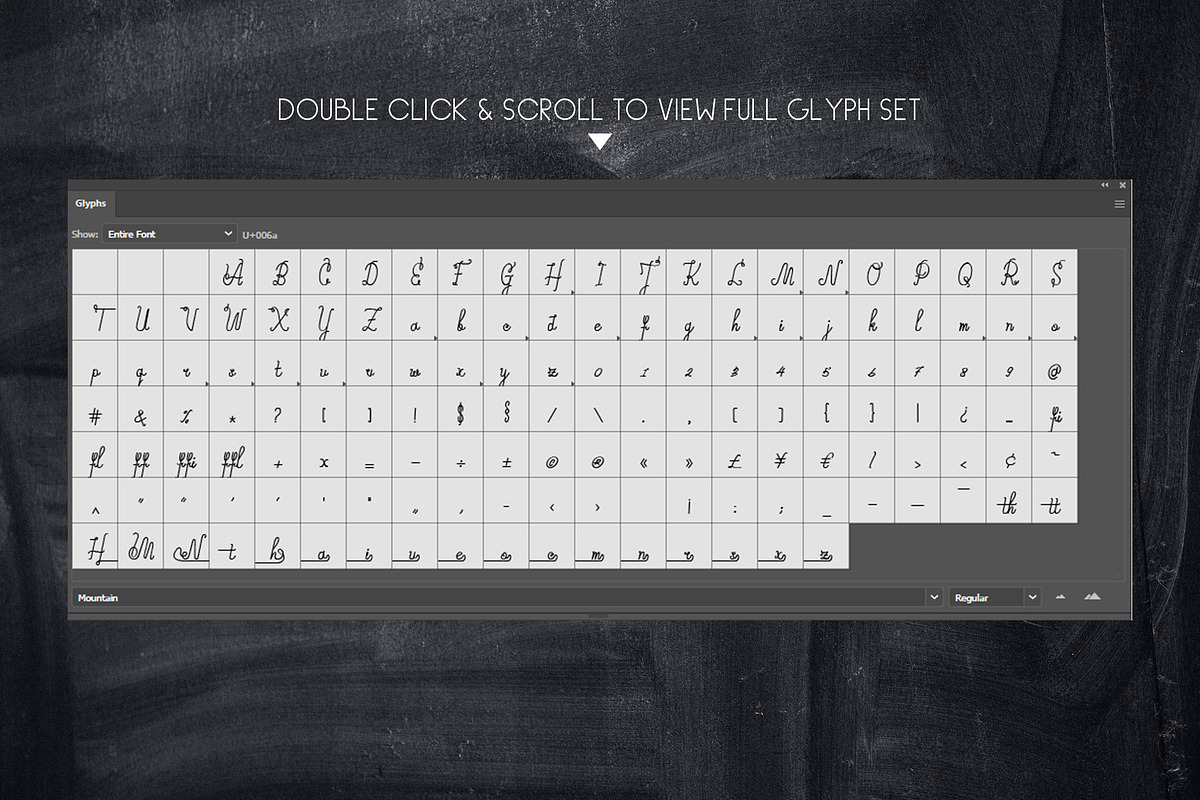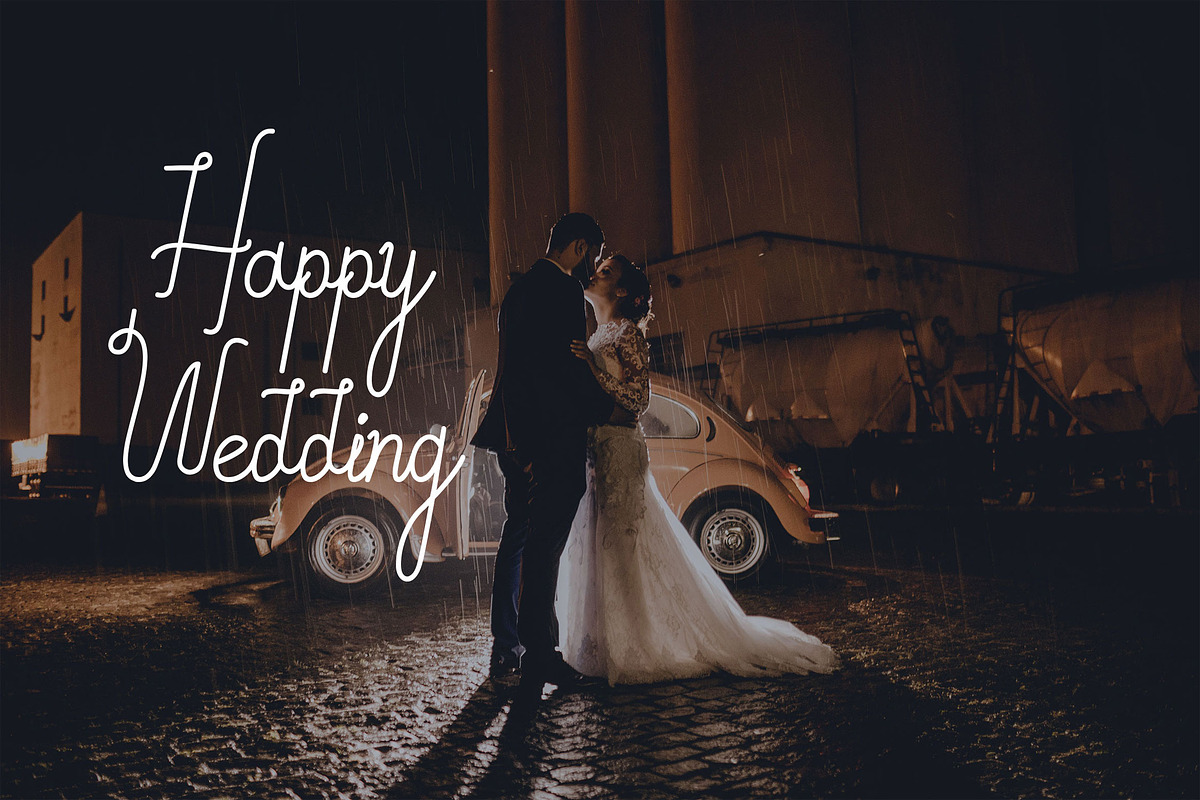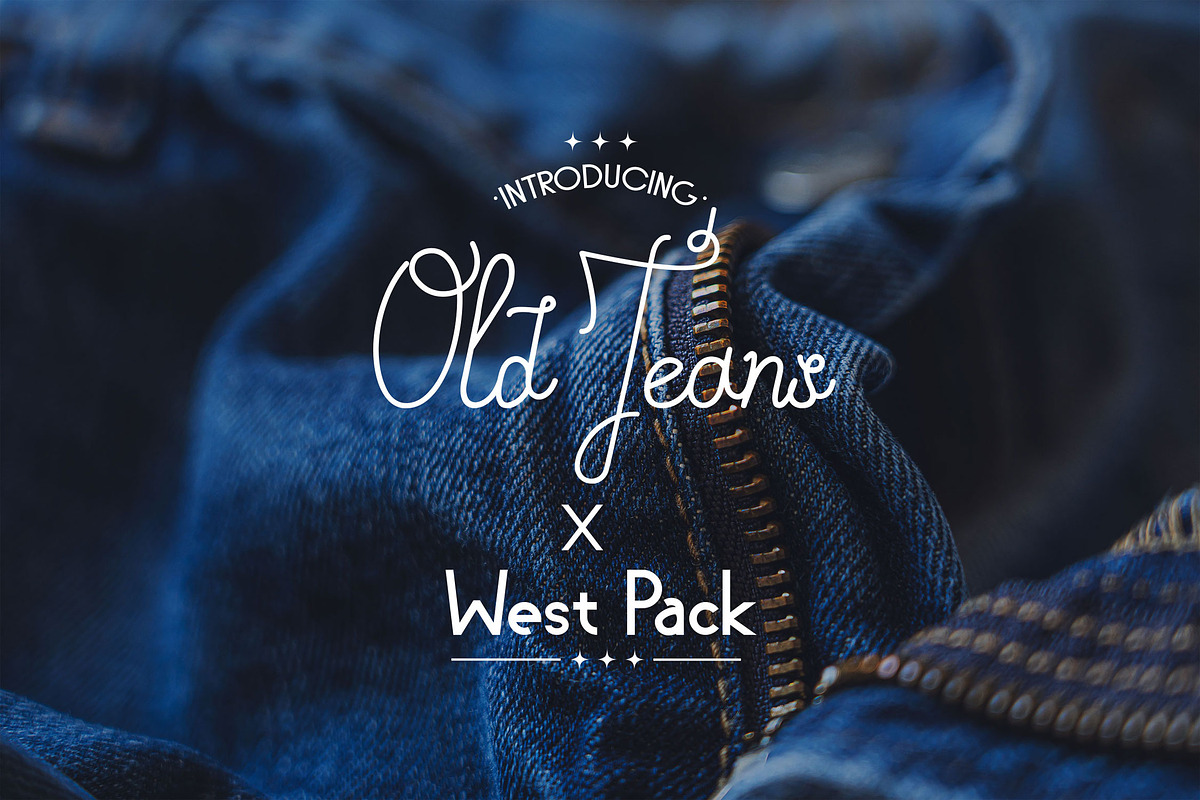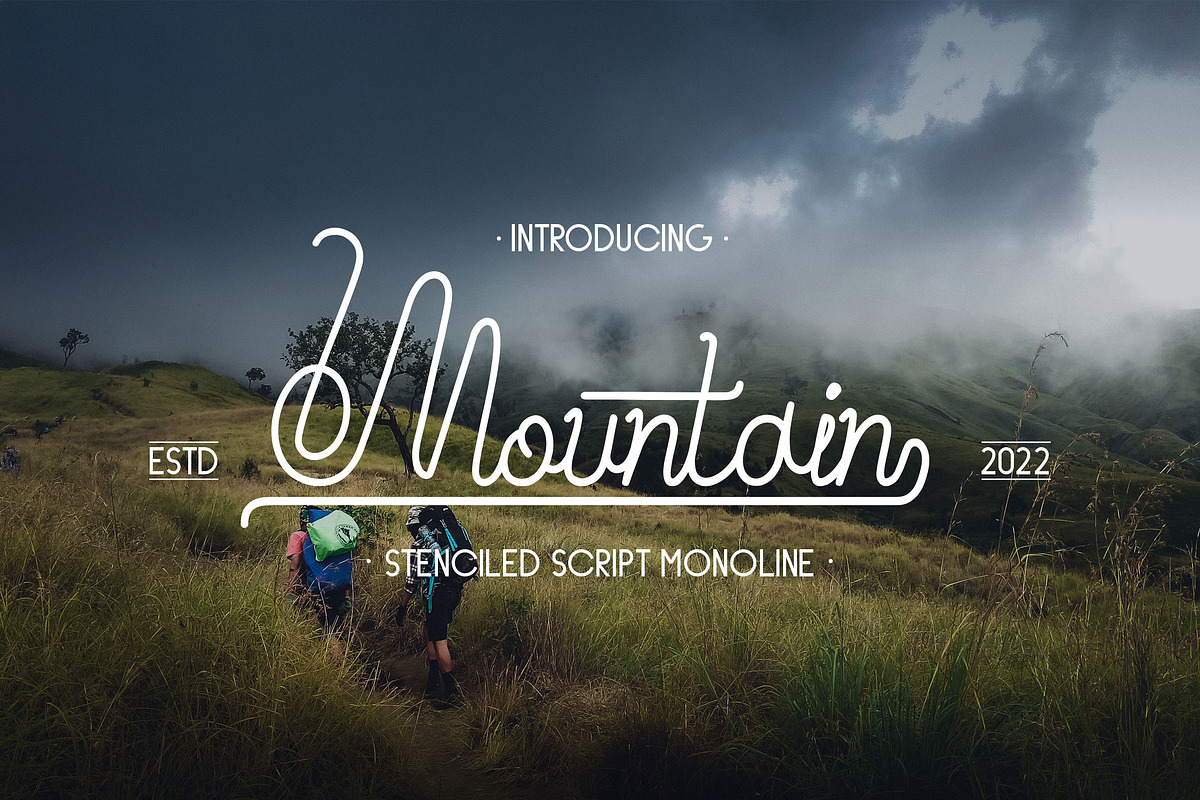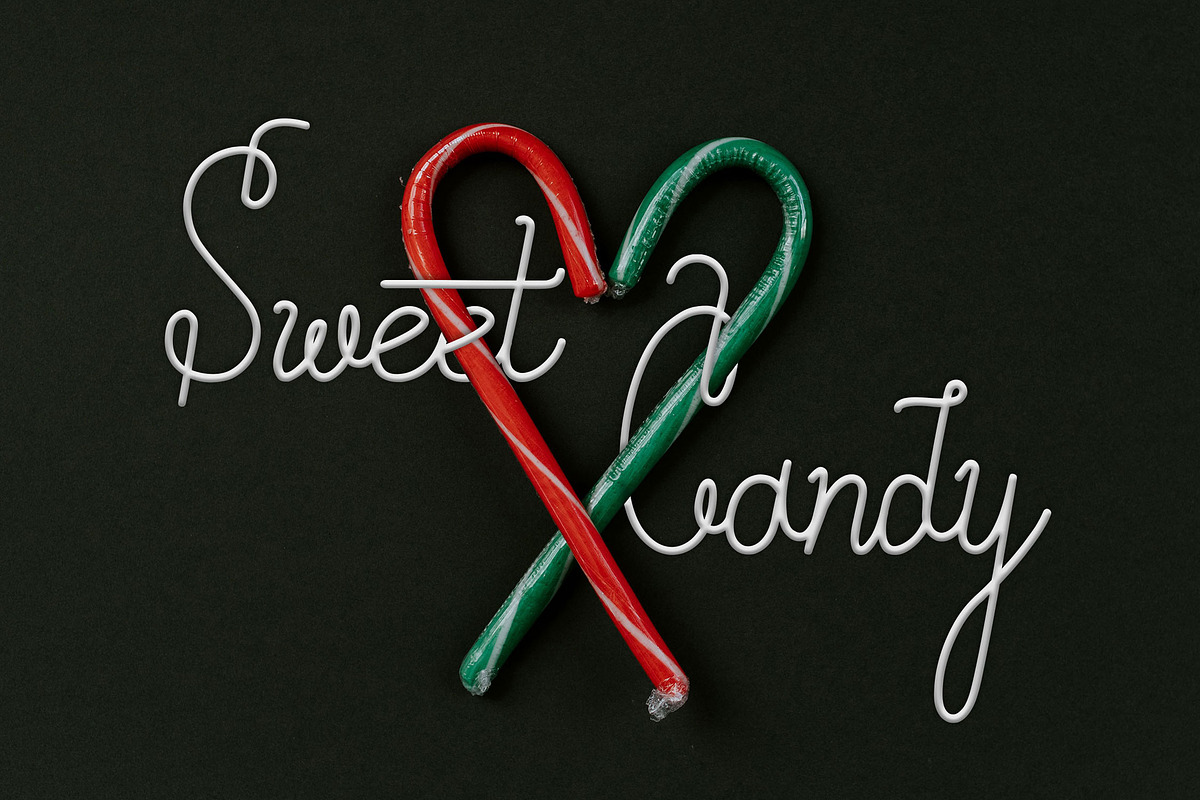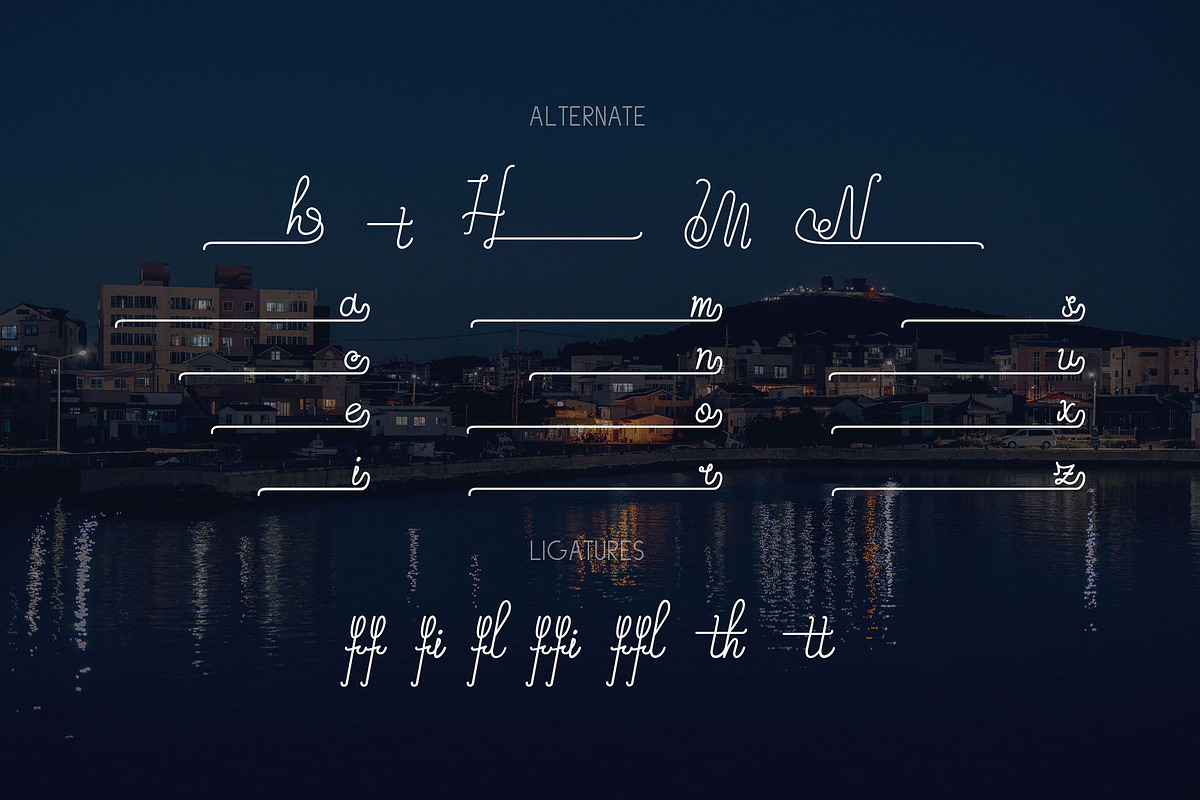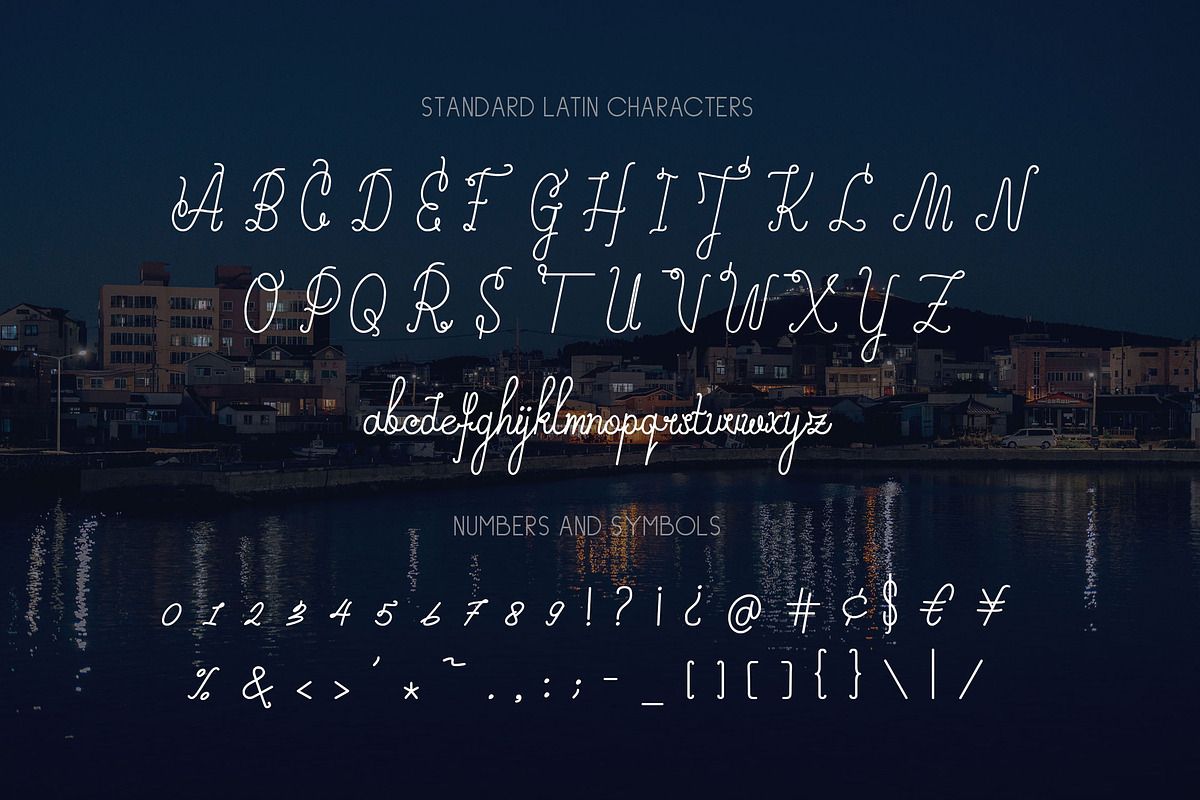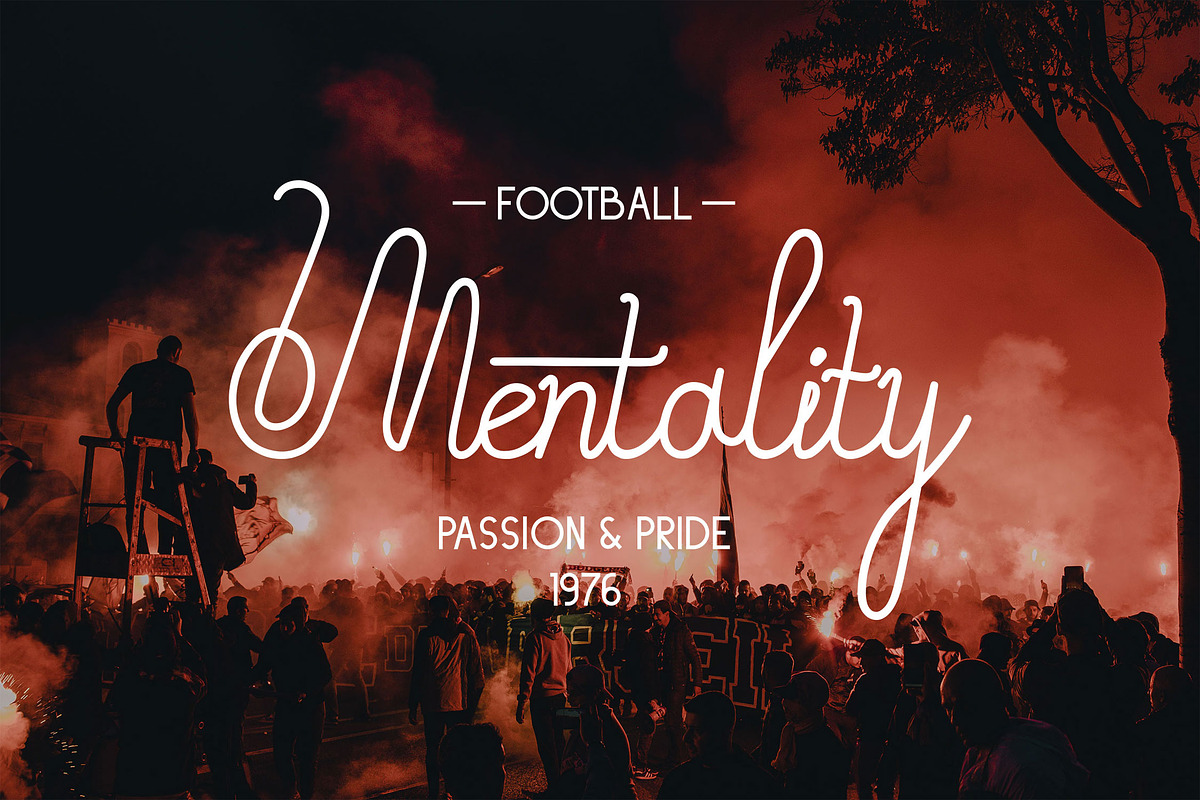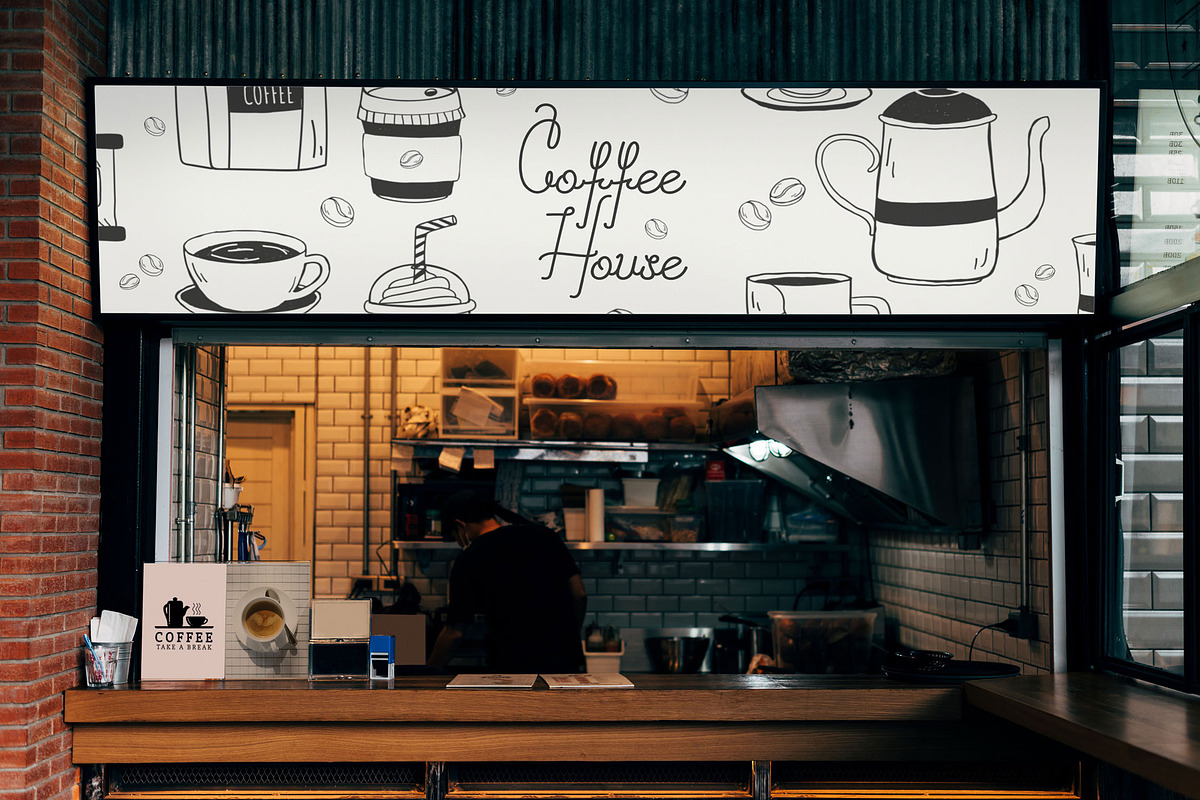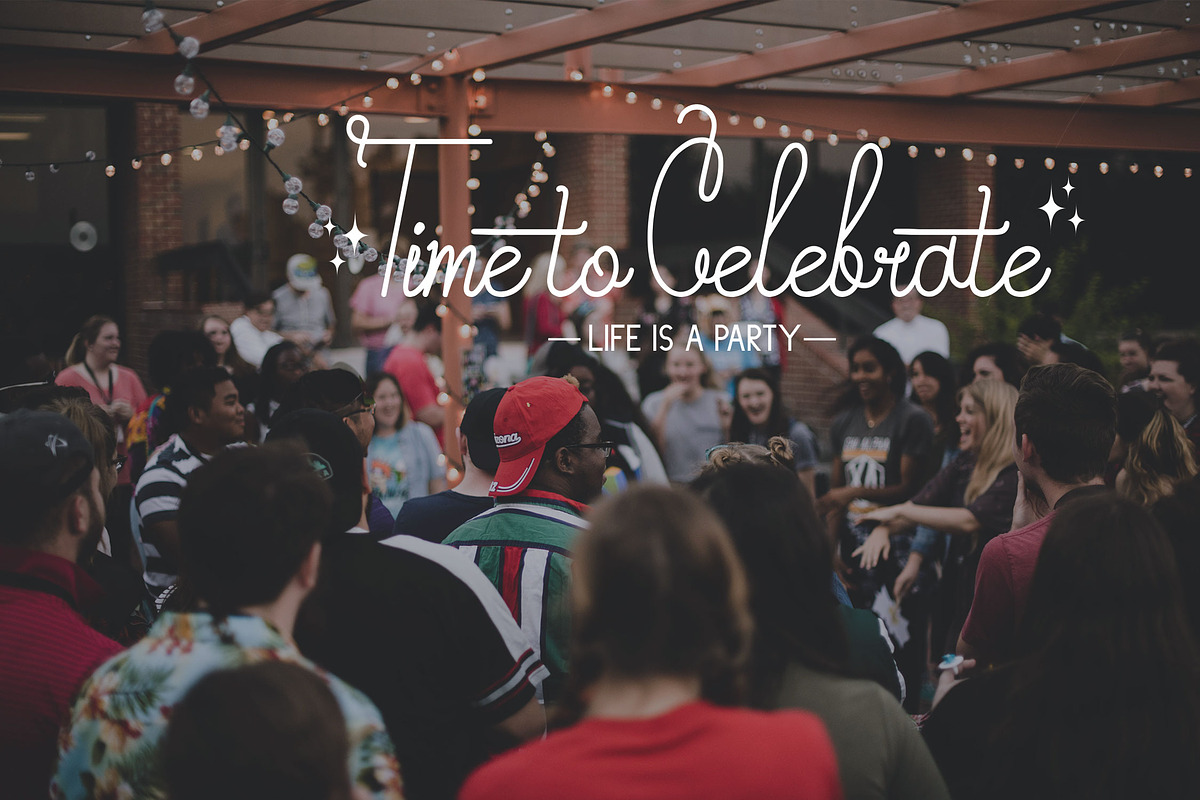
Mountain - Script Monoline
Introducing Mountain, is a Creative Monoline Handwritten Font has many purpose and suitable for badges, logotype, coffee shop, signature, fashion, luxury, invitation, wedding event, modern, classic modern, advertising and much more.
- Available Ligatures and Alternates
- Available Multilingual Set